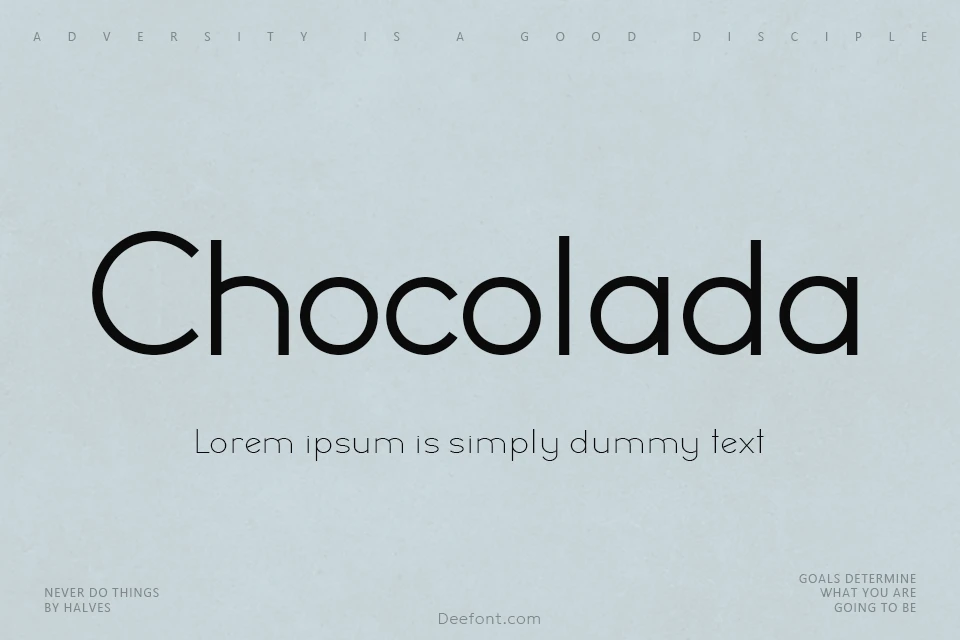
Chocolada Font Family
Chocolada Font Family is a stylish sans serif typeface designed by Vladimir Nikolic. This clean and versatile typeface features subtle crossbars connecting letters beautifully, while unique crotch details and flowing descenders add distinctive character. The font is well-suited for various design applications, particularly effective in banners, headlines, and posters. Its modern aesthetic and readable design make it an excellent choice for both digital and print projects. Chocolada comes with a bold variant, offering flexibility in design compositions. The font’s balanced proportions and contemporary appeal make it a valuable addition to any designer’s typography collection.
Designed by:Vladimir Nikolic